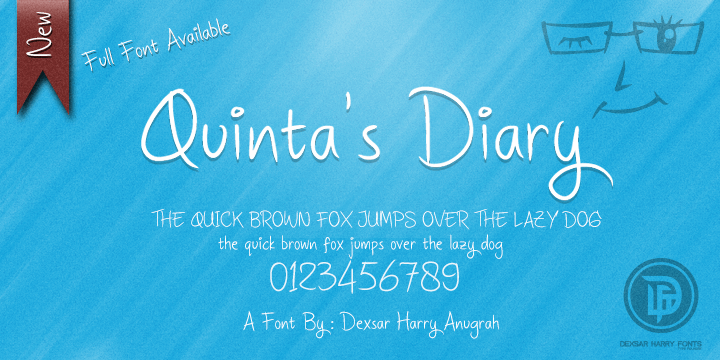
Free DHF Quinta\'s Diary Font
Take a look at this adorable free dhf quinta\'s diary font. Go give some love to Font Space for creating this top-notch font. You can create a professional designs with this fancy font.